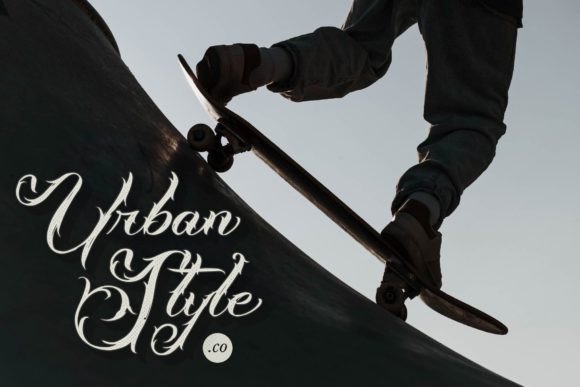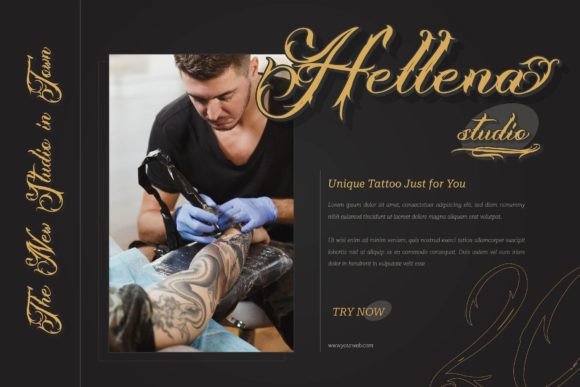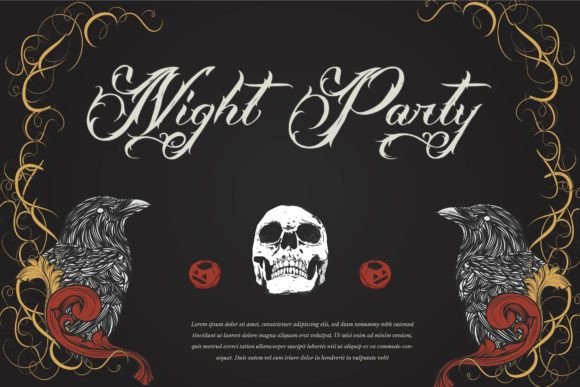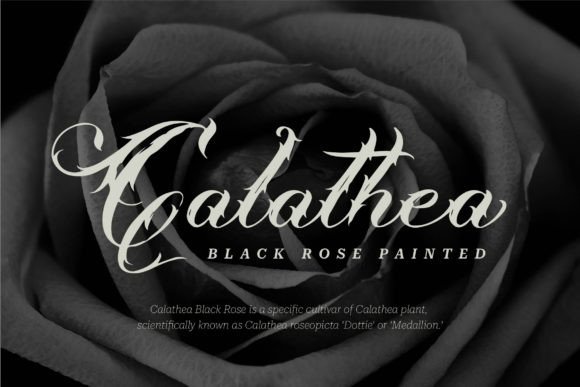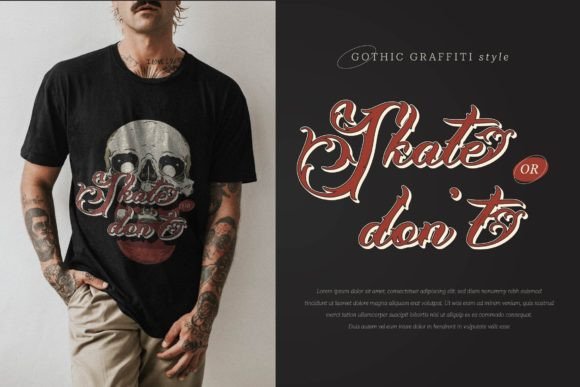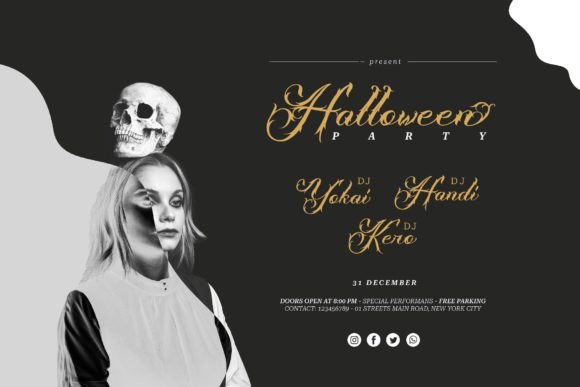
Introduction to Misthycal Font
Have you ever found yourself lost in a sea of digital design, searching for that perfect font to elevate your creative project? We’ve all been there. But what if you stumbled upon a font that not only added an air of sophistication but also an element of mystique? For designers, finding the right font can be a game-changer, and that’s where the Misthycal Font comes in – a bold and thick lettered blackletter font that’s sure to make a statement.
With its PUA encoding, accessing all of the glyphs and swashes is a breeze, allowing you to add a level of depth and creativity to your designs. Whether you’re working on a project that requires a high-quality, transparent background or just need a reliable design resource, the Misthycal Font is a valuable addition to your toolkit. And the best part? It’s available for free download, making it an accessible resource for designers of all levels.
- Unique, hand-drawn design with intricate details, perfect for creative projects and designs that require a touch of magic.
- Includes a wide range of characters, including uppercase and lowercase letters, numbers, and special characters.
- Designed to be highly legible and readable, even at small font sizes, making it perfect for use in various design applications.
Honest Review: Misthycal Font
As a designer, I’m always on the lookout for high-quality design resources to elevate my creative projects. Recently, I stumbled upon the Misthycal Font, and I must say, it’s been a game-changer. ✨
The Misthycal Font is a beautifully crafted, elegant script font that’s perfect for adding a touch of sophistication to your designs. Its transparent background makes it incredibly versatile, allowing you to use it with any color palette you choose.
- What I love about the Misthycal Font is its fluid, handwritten feel, which adds a personal touch to any design.
- It’s also incredibly easy to use, with a simple and intuitive design that makes it perfect for designers of all levels.
However, I do have a few limitations to note: ⚠️
- While the Misthycal Font is high-quality, it’s not suitable for use in body text, as it can be quite difficult to read at smaller font sizes.
- It’s also not as extensive a font family as some other options, so you may need to supplement it with other fonts to achieve the look you want.
Overall, I’m thoroughly impressed with the Misthycal Font, and I highly recommend it to anyone looking to add a touch of elegance to their designs. With its beautiful design, transparent background, and free download option, it’s a design resource that’s hard to beat!
Design Tips
For the most out of the Misthycal Font, use it in creative projects that require a high-quality, elegant touch. Consider pairing it with a transparent background to add depth and visual interest to your design. You can also use it to create eye-catching headings and titles.
The Misthycal Font is perfect for a variety of design projects, including wedding invitations, business cards, and marketing materials. Its elegant and sophisticated look makes it an ideal choice for any creative project that requires a high level of sophistication and style.